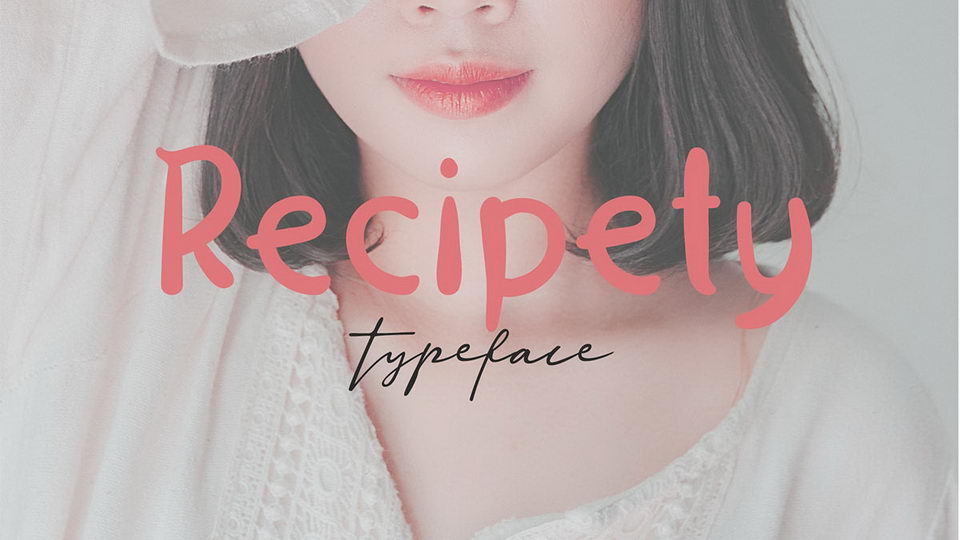
Recipety Font
Recipety is a simple yet nice handwritten font. It’s perfect for crafts and DIY projects, notes, quotes, natural products, menus and more. With multilingual feature and style variations, this typeface would further enhance the aestethical aspect of your work.